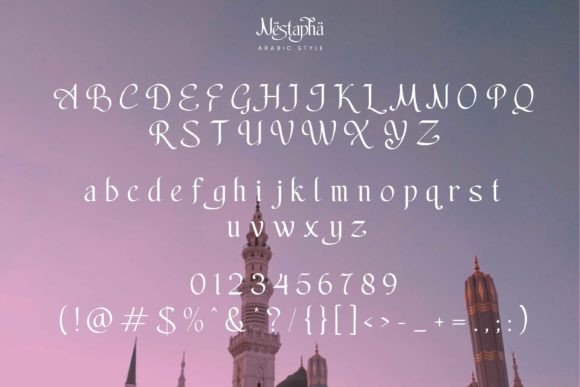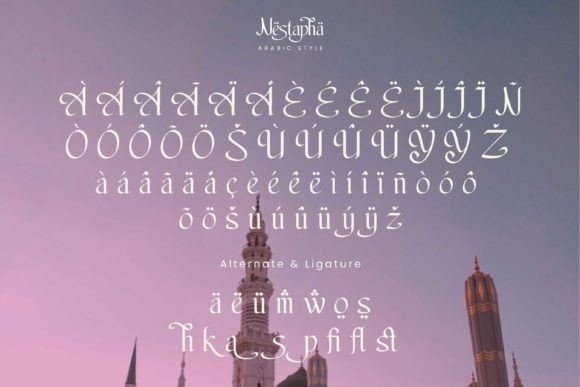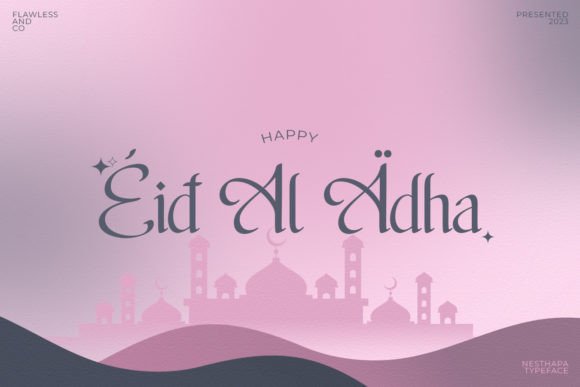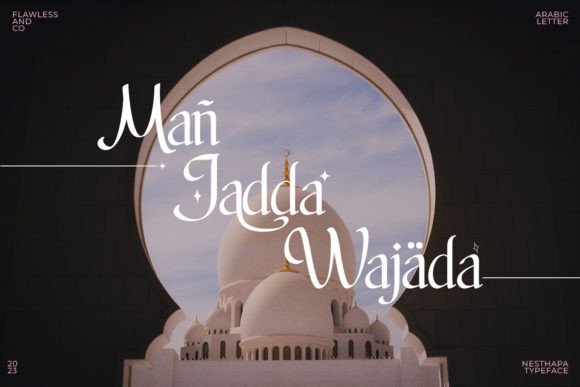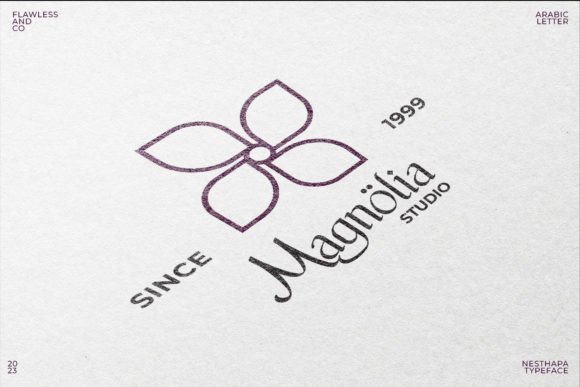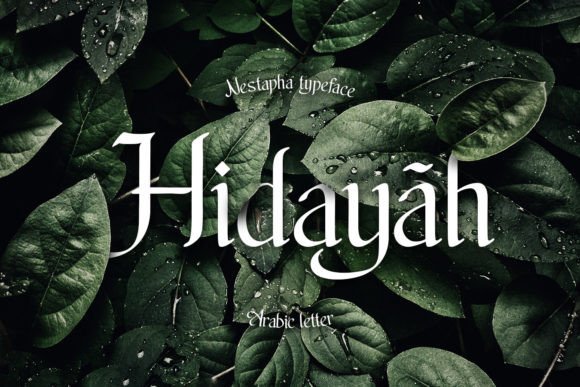
Introduction to Nestapha Font
As a designer, you know the thrill of discovering a new font that perfectly captures the essence of your creative vision. For me, that moment came when I stumbled upon the stunning Nestapha Font, and I knew I had to share it with fellow designers. Its elegant Arabic-style letterforms and flowing curves instantly transported me to a world of cultural richness and spiritual depth.
Whether you’re working on a project related to Ramadan, or simply seeking a unique design element to elevate your creative project, Nestapha Font is an invaluable resource. With its high-quality design and transparent background, it’s perfect for designers looking to add a touch of sophistication to their work. And the best part? It’s available for free download, making it an accessible and valuable design resource for creatives of all levels.
Key Features of Nestapha Font
- High-quality design resource ideal for creative projects, offering a unique and elegant style.
- Features a transparent background, allowing for seamless integration into any design or project.
- Comes in a range of sizes, with a minimum size of 12pt and a maximum size of 72pt, making it versatile for various design applications.
- Resolution: 300 DPI, ensuring high-quality output and crisp text display.
- Designed to be easily scalable, making it perfect for use in logos, branding, and other design elements.
Honest Review: Nestapha Font
I recently came across the Nestapha Font, and I must say it’s a great addition to any design enthusiast’s toolkit. This free download is perfect for anyone working on a creative project that requires a unique and elegant touch.
What works well with Nestapha Font is its high quality and versatility. It’s available in a range of weights, making it suitable for a variety of design applications. The font also has a transparent background, which is ideal for overlaying text on images or backgrounds.
Here are some of the key features that make Nestapha Font stand out:
- High-quality design with a range of weights
- Transparent background for easy text overlay
- Perfect for creative projects that require a unique touch
Overall, I’m impressed with the Nestapha Font and would definitely recommend it to anyone looking for a high-quality design resource. With its versatility and elegant design, it’s a great addition to any designer’s toolkit.
Nestapha Font
The Nestapha Font is a versatile and high-quality design resource ideal for creative projects. With its transparent background and free download option, it’s perfect for designers and artists looking to add a unique touch to their work.